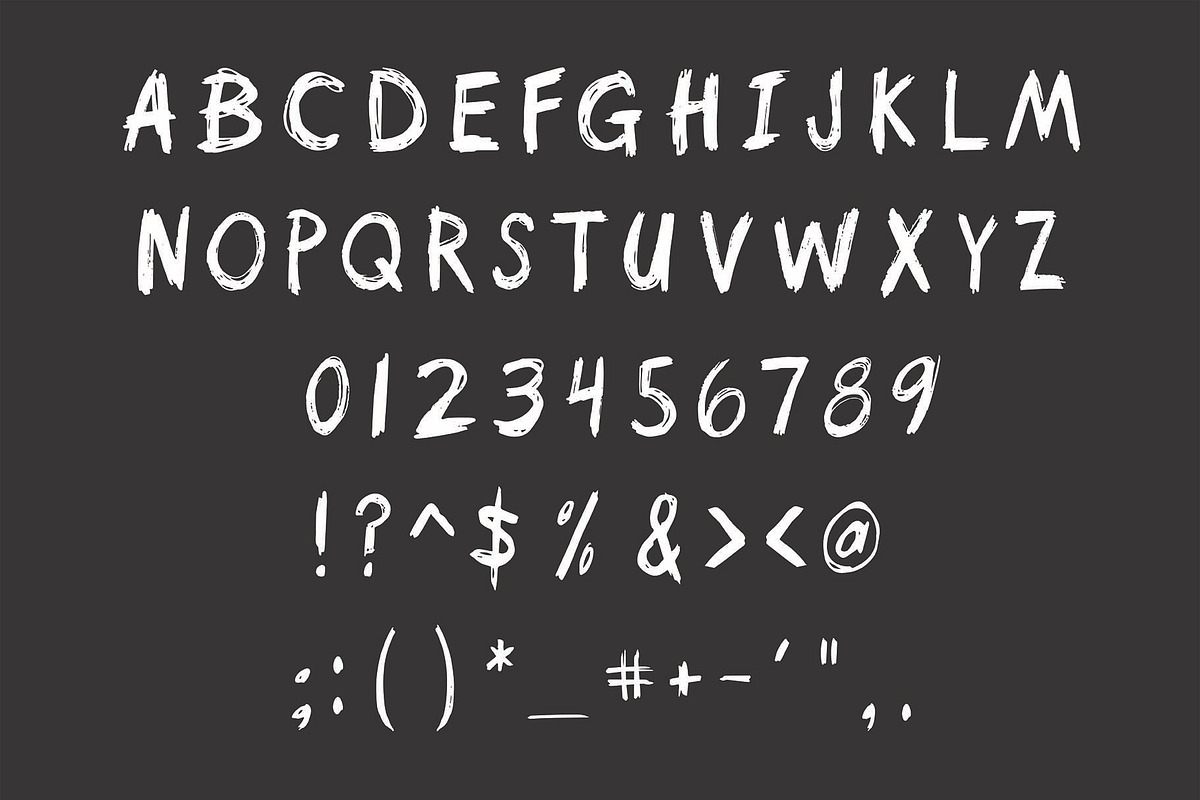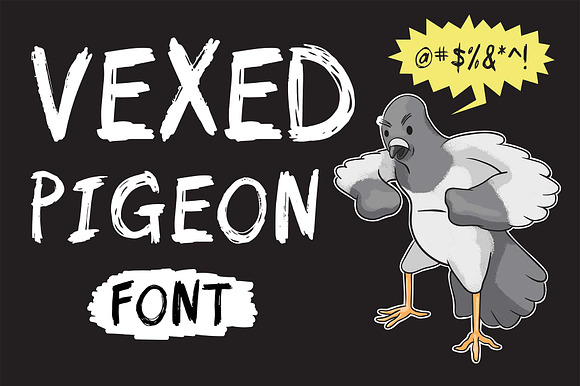
Vexed Pigeon Font
Hand written font that's perfect for any of your projects. Artwork of pigeon included!
Vexed Pigeon Font by ottootto fits naturally into Branding, posters, packaging, typography.